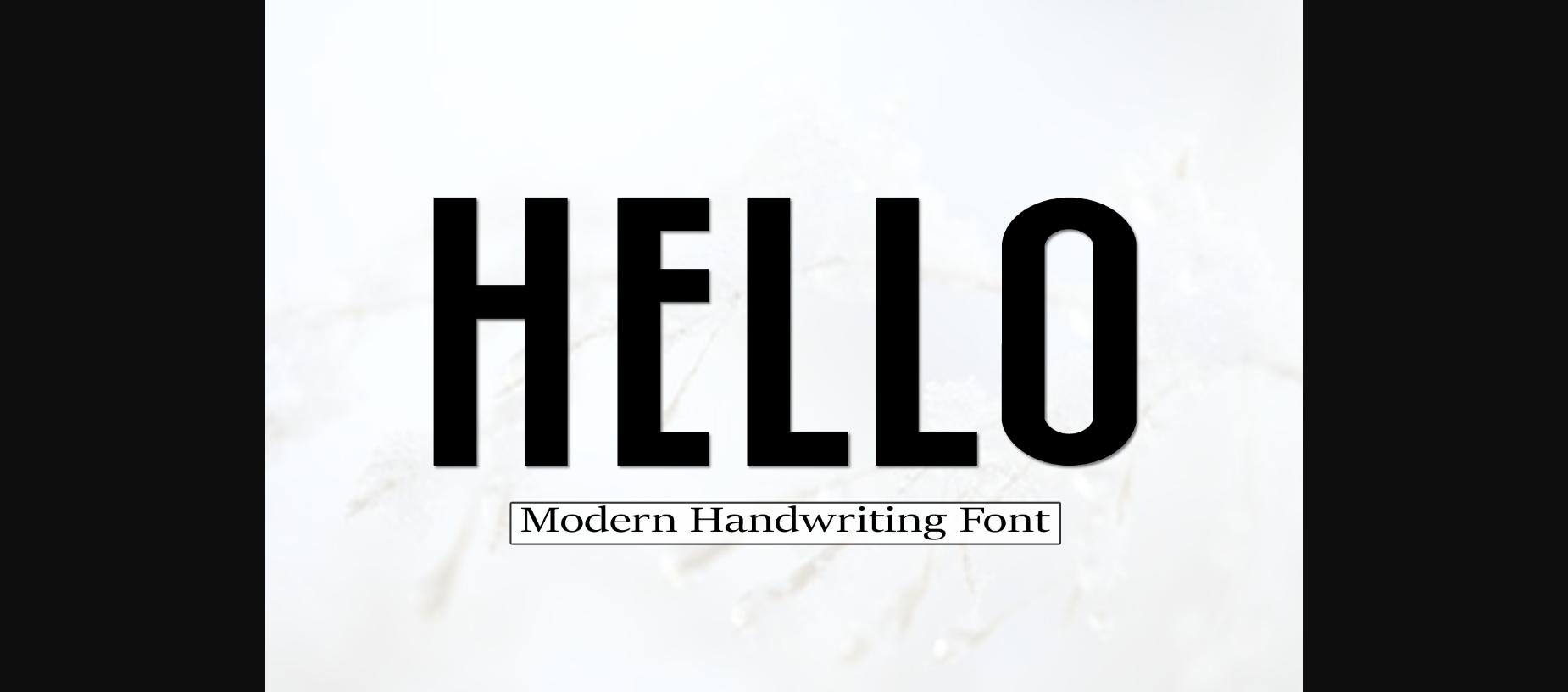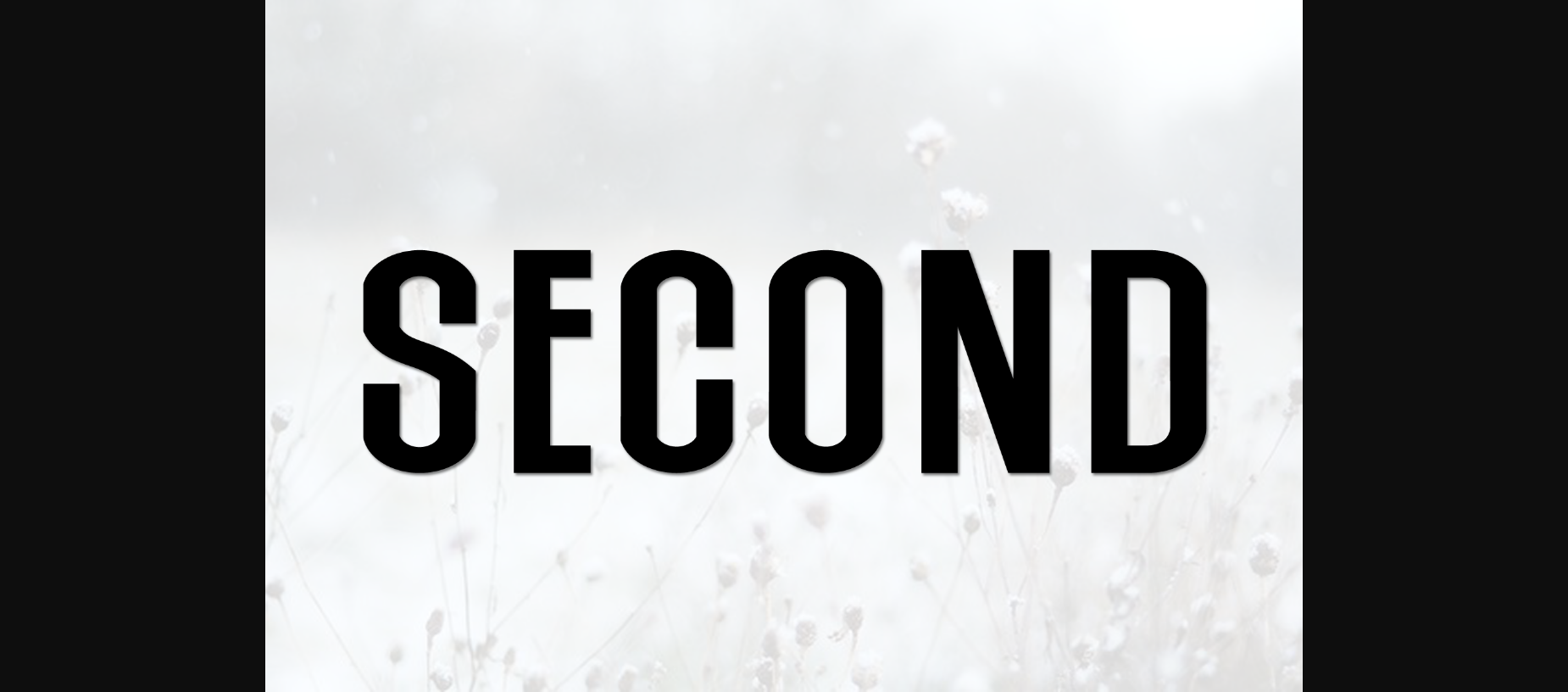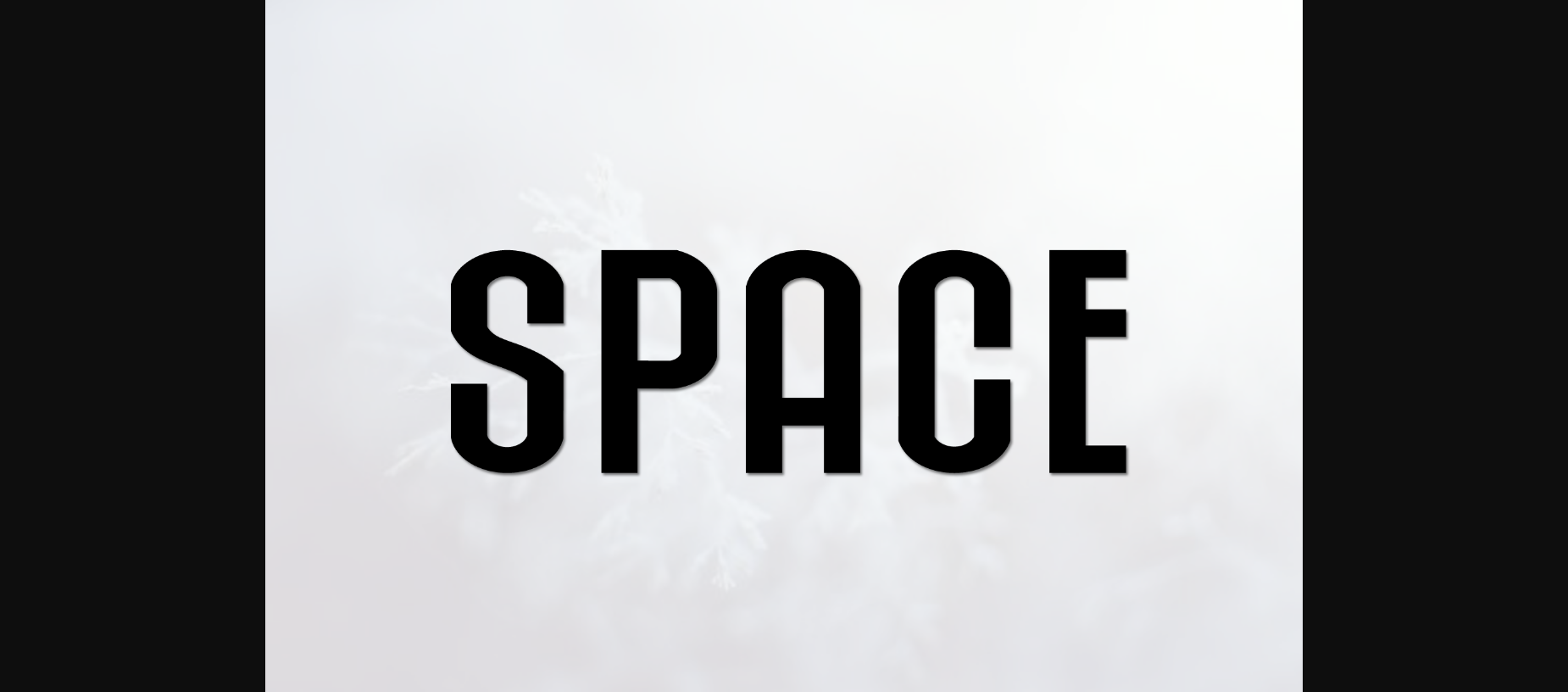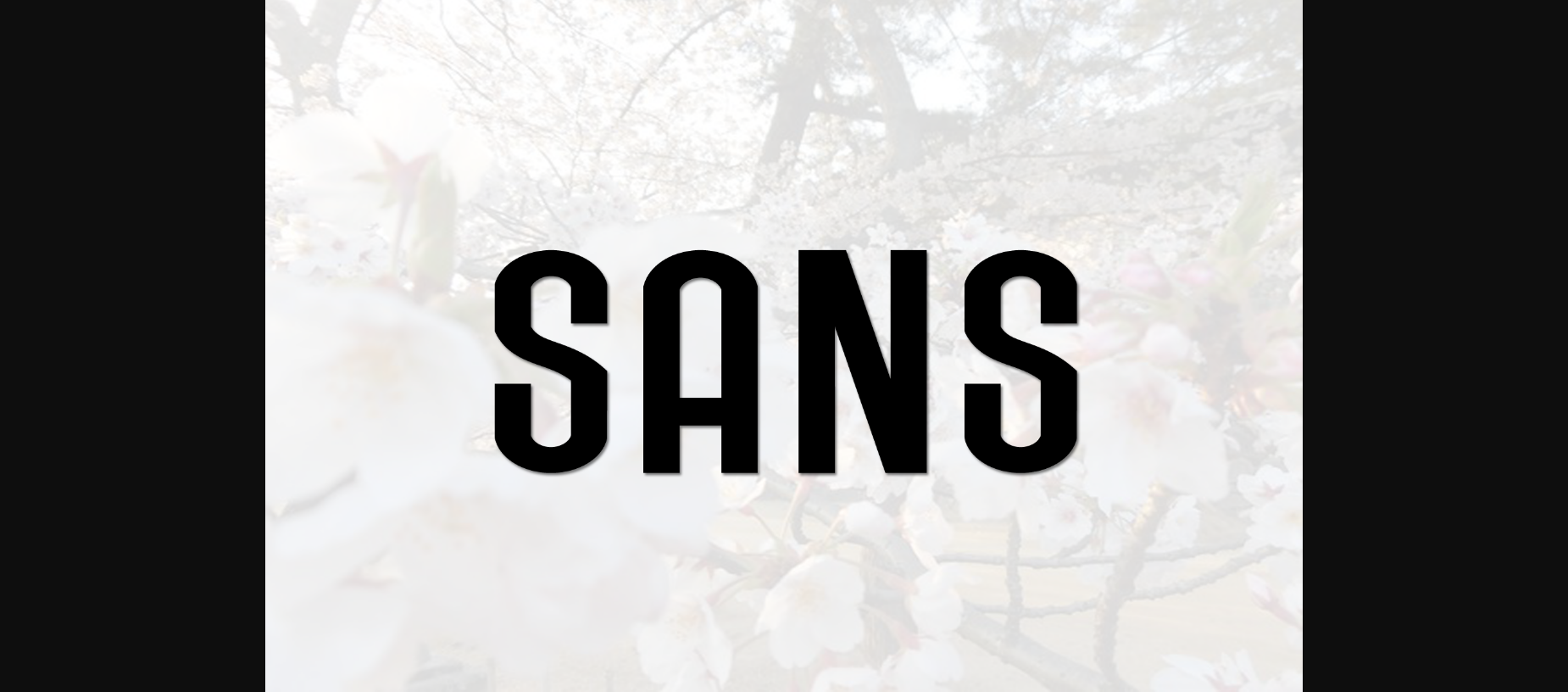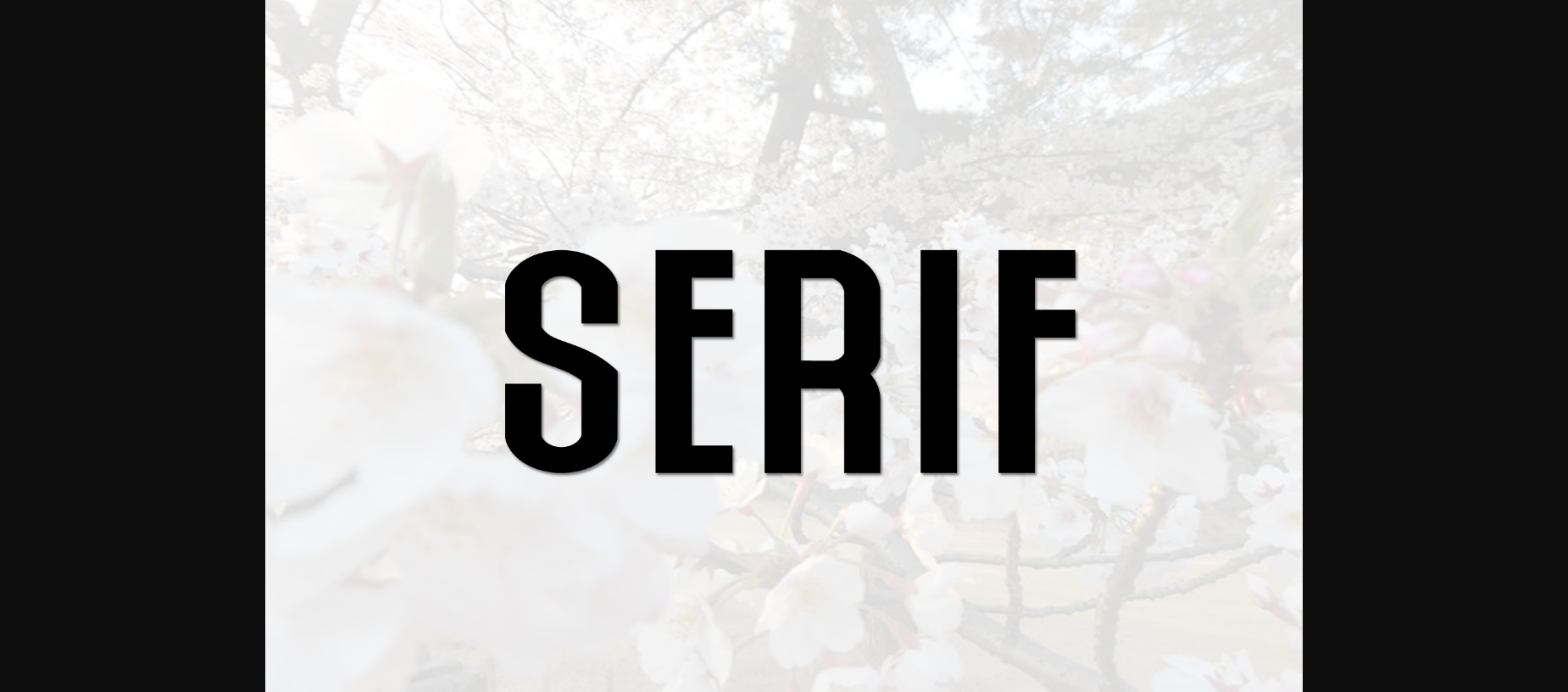
Hello is a stylish and very elegant sans serif font. It looks amazing on wedding invitations, thank you cards, quotes, greeting cards, logos, business cards and any other design that calls for a classic touch.